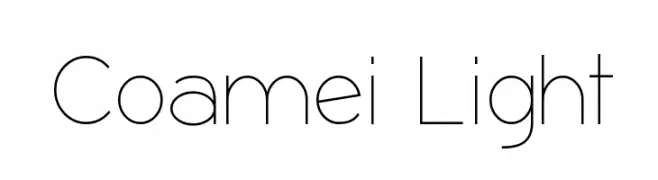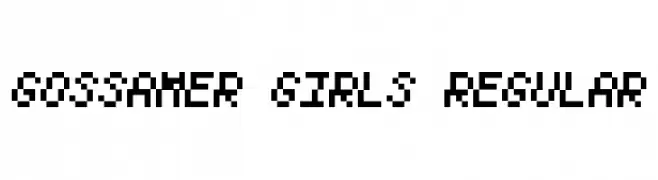
A pixelated, blocky font inspired by retro digital displays.
A lively and elegant handwritten script font with bold uppercase and smooth lowercase letters.
A futuristic, geometric font with rounded edges and uniform strokes.
A futuristic, bold font with rounded edges and a geometric design.
A playful, handwritten font with tall, narrow letters and smooth strokes.
A bold, pixelated font with a retro, 8-bit digital aesthetic.
A bold, slanted font with outlined characters and a modern, dynamic style.
A bold, left-leaning font with a dynamic and futuristic style.
A clean, geometric font with thin lines and a modern aesthetic.
A bold, flame-themed font with a dynamic, energetic style.